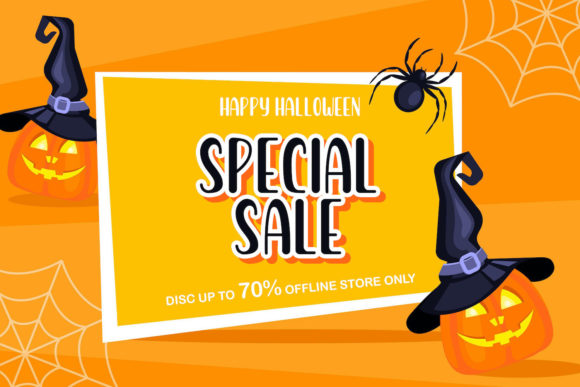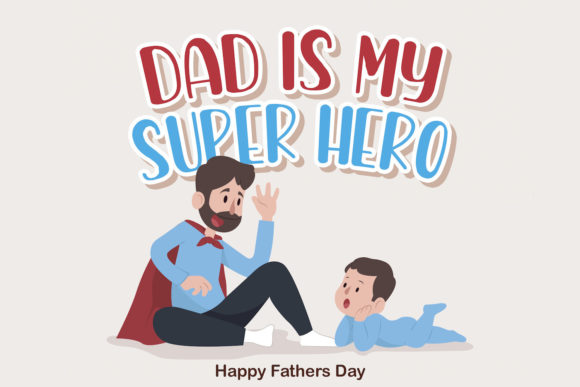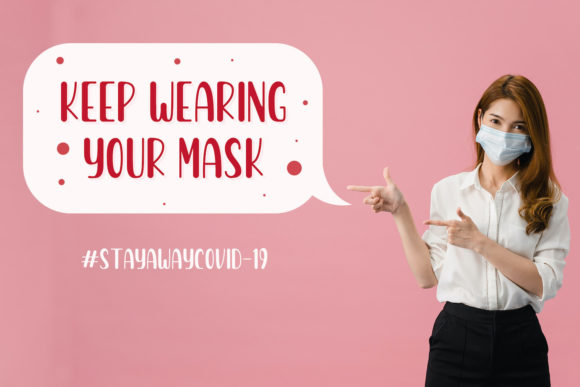
Introduction to Lionel Virgi Font
Have you ever been in a creative flow, and the perfect font just clicks? For designers, finding the right font can be the difference between a great project and an amazing one. For me, that moment came when I discovered the Lionel Virgi Font – a fun display font that instantly elevates any design. Its playful and fresh feel makes it a hit for children’s projects, school assignments, and even commercial designs.
With its high-quality design and transparent background, the Lionel Virgi Font is a valuable resource for any creative project. Whether you’re a seasoned designer or just starting out, this font is sure to add a unique touch to your work. And the best part? It’s available for free download, making it an accessible design resource for everyone.
Lionel Virgi Font
- Unique characteristics include a bold, modern design with a subtle flair, making it perfect for graphic designers and digital artists.
- Perfect for use in logos, branding materials, and other design elements where a stylish and professional look is required.
Honest Review: Lionel Virgi Font
- ✨ The font’s transparent background makes it easy to use in a variety of design scenarios.
- ✨ The bold and modern design style is perfect for creating attention-grabbing headlines and titles.
- ✨ The font is highly versatile and can be used in both digital and print media.
- ⚠️ The font may not be suitable for designs that require a lot of subtlety or nuance, as its bold design style can be overwhelming.
Overall, I’m impressed with the Lionel Virgi Font and would recommend it to designers looking for a high-quality, modern font for their creative projects.
Lionel Virgi Font
The Lionel Virgi Font is a high-quality design resource ideal for creative projects. It offers a unique and elegant style that can elevate your designs. You can download the font for free from various online sources.
Getting the Most Out of Lionel Virgi Font
To get the most out of the Lionel Virgi Font, use it in conjunction with other design elements such as images and graphics. You can also experiment with different font sizes and colors to create a unique and visually appealing design. Additionally, consider using the font on a transparent background to create a sense of depth and dimensionality.
The Lionel Virgi Font is ideal for use in creative projects such as logos, branding, and marketing materials. It is also suitable for use in presentations, reports, and other business documents. The font’s elegant style makes it a great choice for use in wedding invitations, birthday cards, and other special occasion materials.